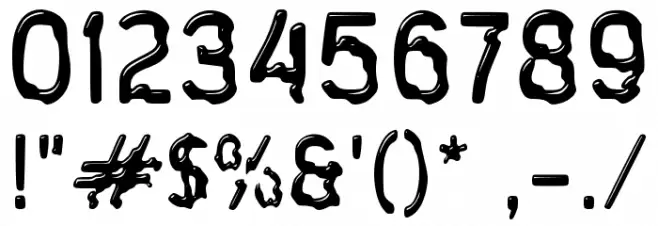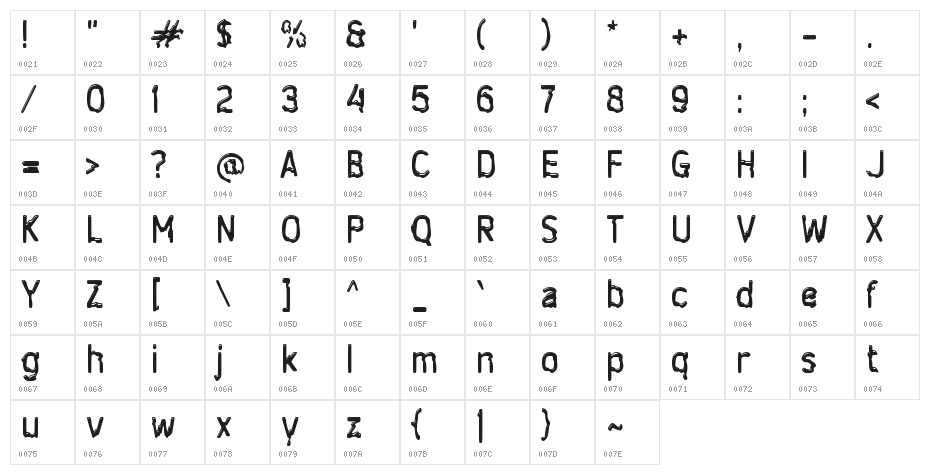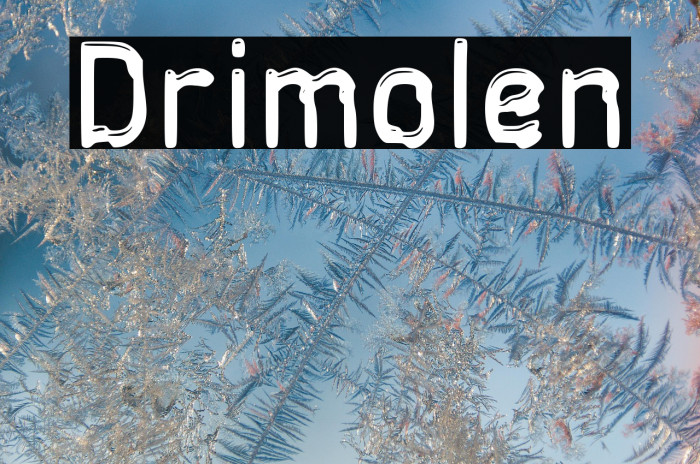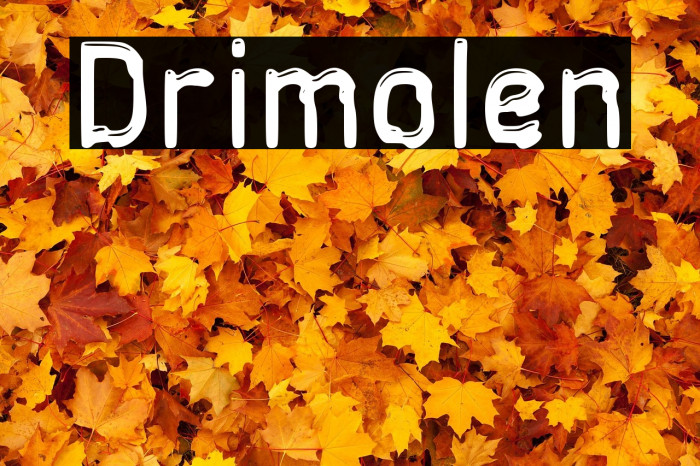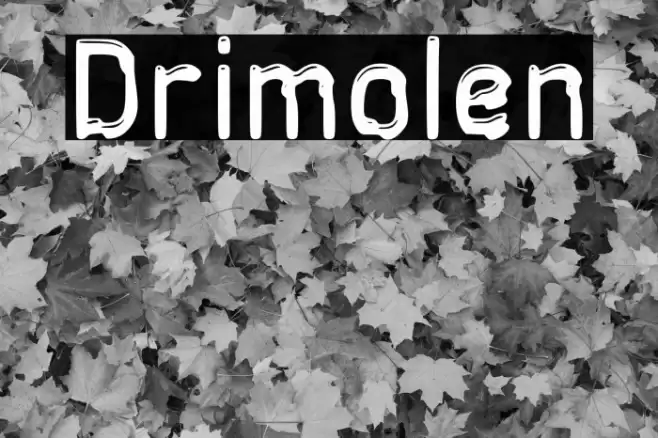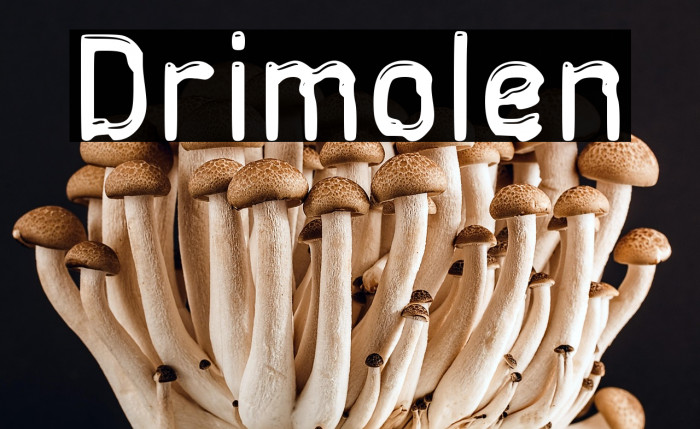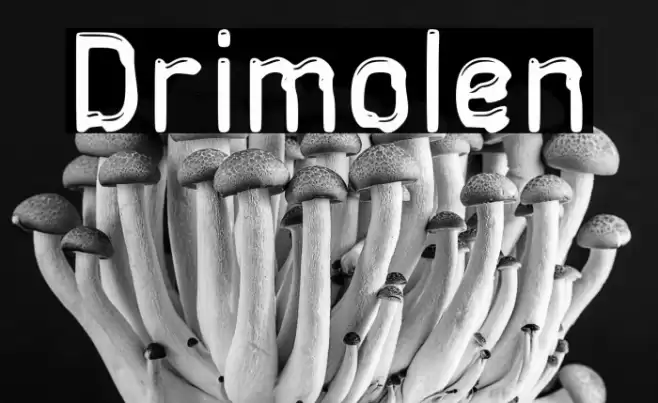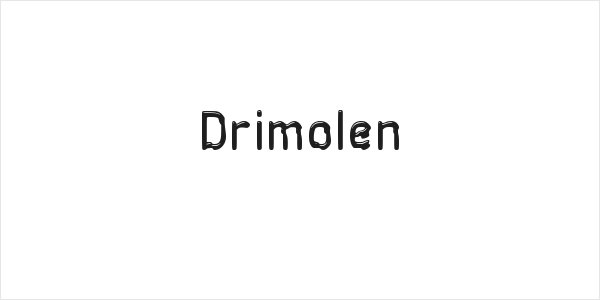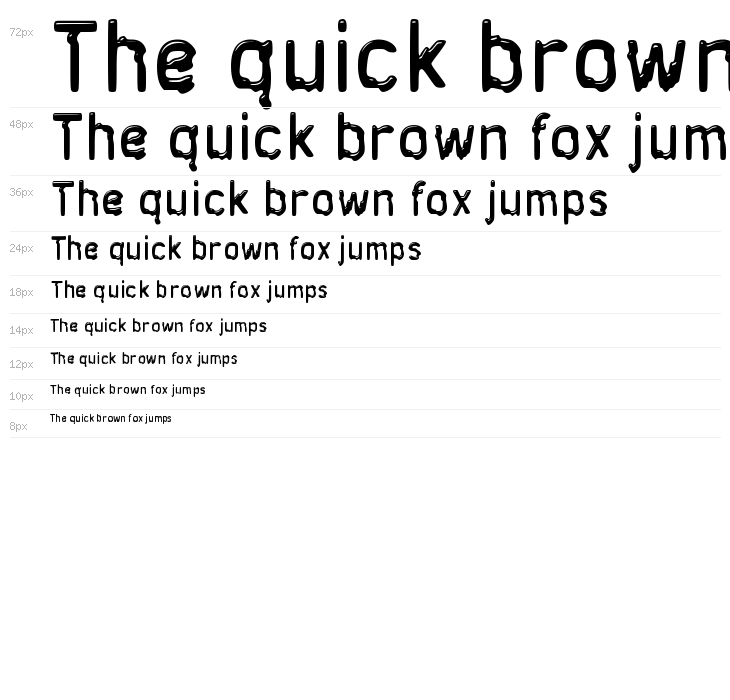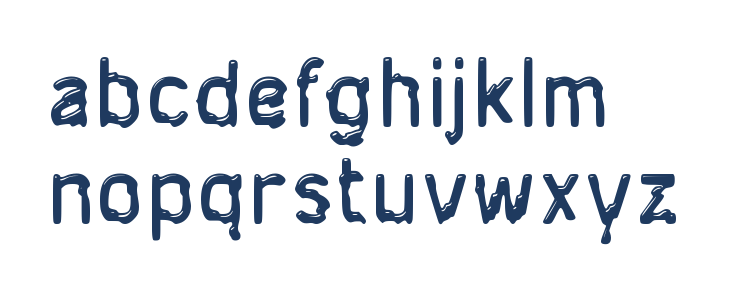
Drimolen Font
Drimolen Description
This font features a unique, organic design with a hand-drawn appearance. The characters are bold and have a slightly irregular, wavy outline that gives them a playful and artistic feel. The strokes are thick, with a medium contrast between the thick and thin parts of the letters. The overall style is decorative, making it suitable for creative projects. The font includes a full set of uppercase and lowercase letters, numbers, and a variety of special characters. Its distinctive style makes it stand out, perfect for projects that require a touch of whimsy and creativity.
| Proposed Projects | Ideal for posters, artistic projects, children's books, and creative branding. |